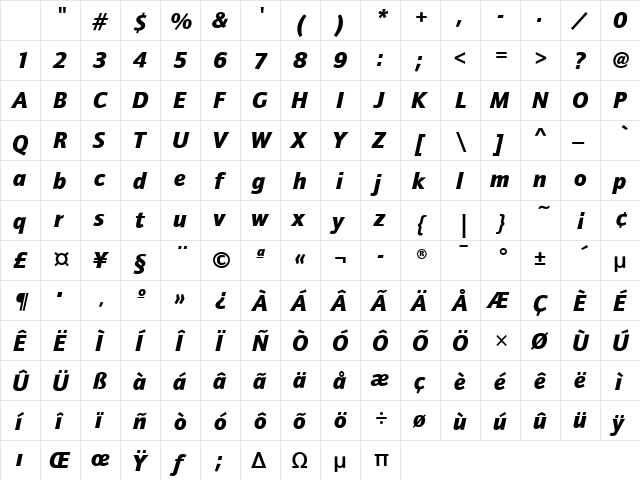
Complete QuaySansITC Black Italic glyph index. Displaying only characters natively supported by QuaySansITC Black Italic font.
QuaySansITC is a composed and adaptable typeface that performs quietly and consistently across a wide range of design contexts. The slanted form adds forward momentum and visual energy.